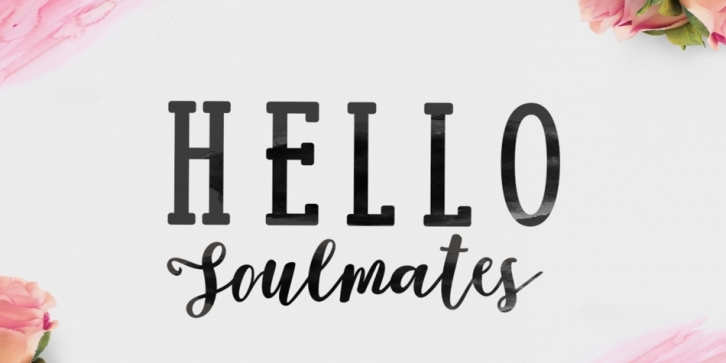
Soulmates is a display slab and modern calligraphy font family. This typeface has four styles and was published by Fontasticlab.
Hello guys! Soulmates Script font package incorporated the design of a 413 Glyphs including swashes Alternates style. Stylistic Set, OpenType features can be accessed using OpenType savvy programs like Adobe Illustrator and Adobe InDesign.
What is even more remarkable you will get five font Soulmates caps serif display, and guided by sketching extras bonus pencil in format EPS, AI, PNG course is suitable for you to make of materials to design, all the needs of the media you need such design projects weddings, invitations, greeting cards, signatures, watermarks, logos, handwriting and many more.